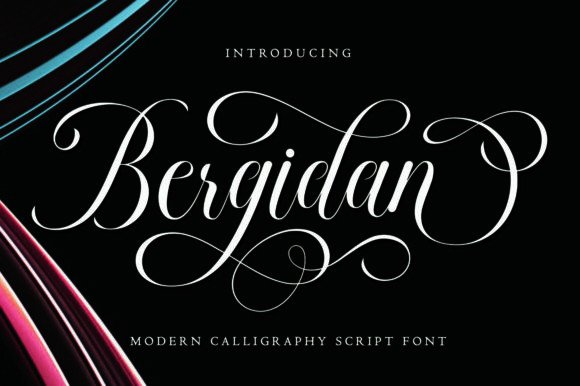
Bergidan Font: The Epitome of Elegance and Sophistication
In a world clamoring for distinction, Bergidan Font emerges as a beacon of elegance, beckoning you to embrace individuality. This exquisite creation by Reyna Studio is not just a font; it's an artistic expression that transforms your creative visions into breathtaking realities. Bergidan is a script font, a symphony of flowing strokes and graceful curves that dances across digital canvases with an unmatched charm.
As you delve into Bergidan's depths, you'll discover a font that seamlessly blends the timeless allure of calligraphy with the crisp precision of modern design. Its meticulously crafted characters exude sophistication, enhancing every word with a touch of class. Whether you're crafting formal invitations, designing captivating logos, or adding a touch of elegance to your personal projects, Bergidan is your trusted companion, elevating your creations to new heights of excellence.
But what truly sets Bergidan apart is its versatility. Its inherent flexibility allows it to adapt effortlessly to a myriad of design aesthetics. From the delicate charm of wedding invitations to the bold appeal of fashion magazines, Bergidan harmonizes seamlessly, enhancing your projects with its timeless beauty. Its ability to effortlessly transition between formal and casual settings makes it an indispensable tool for designers seeking to make a lasting impression.
The beauty of Bergidan lies not only in its visual appeal but also in its ease of use. Encoded with PUA, this font grants you effortless access to a treasure trove of glyphs and sweeps, expanding your creative possibilities beyond imagination. Unleash your creativity and explore the endless design possibilities that await, knowing that Bergidan will faithfully translate your vision into a captivating reality.
With Bergidan as your design ally, you'll embark on a journey of creative empowerment, leaving a trail of visually stunning projects that captivate and inspire. Its inherent elegance and versatility will transform your designs into works of art, leaving an indelible mark on the hearts and minds of your audience. Experience the Bergidan difference today and unlock the gateway to design excellence.